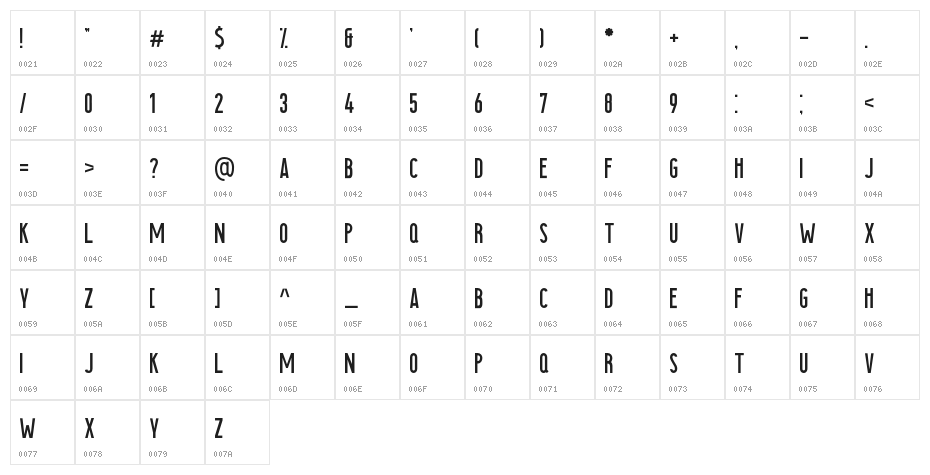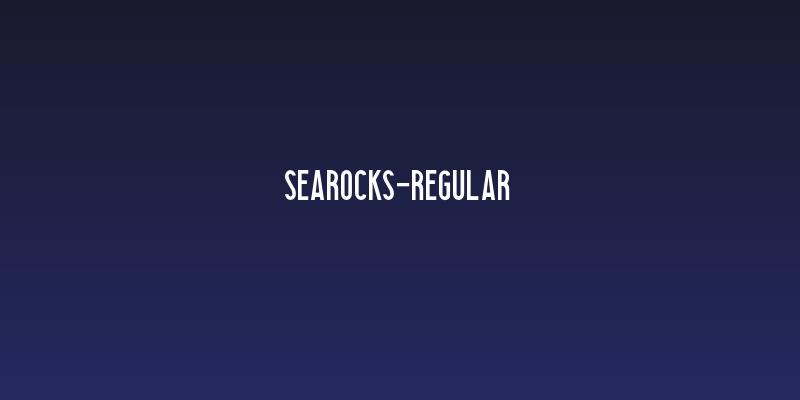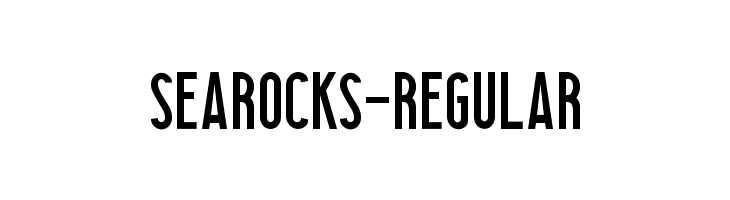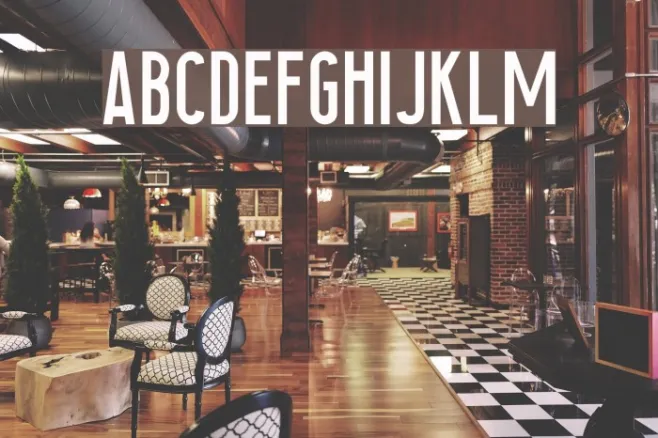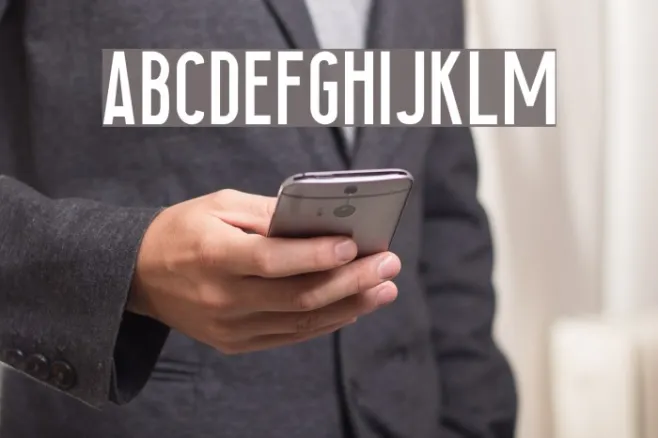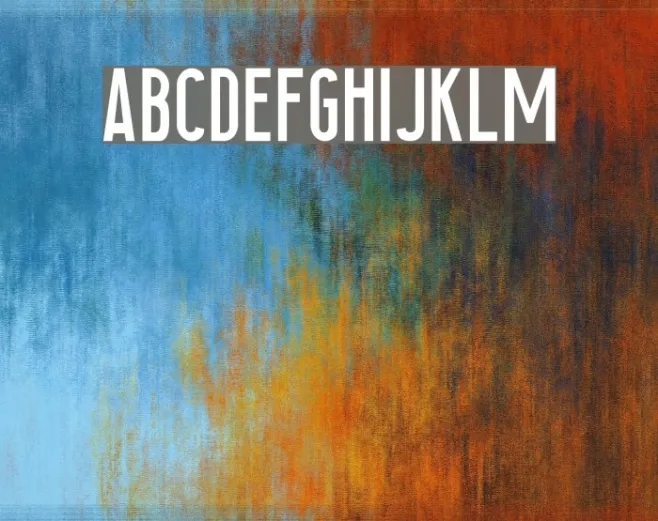
Searocks-Regular Font
Searocks-Regular Description
This font features a bold and modern sans-serif style with clean, straight lines and a slightly condensed appearance. The uppercase letters are uniform in height, providing a strong and cohesive look. The lowercase letters maintain a similar structure, ensuring readability and consistency. The numerals are clear and distinct, matching the overall aesthetic of the alphabet. Special characters are designed with the same attention to detail, making them suitable for various applications. The font's design is versatile, making it ideal for both digital and print media.
| Proposed Projects | Ideal for branding, headlines, posters, and digital media. |